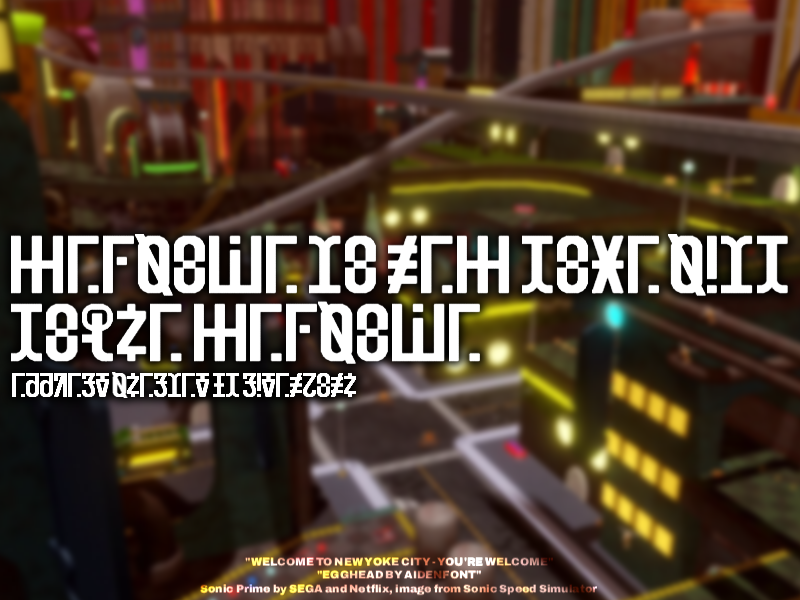
Recreation of the script seen throughout Sonic Prime. Not entirely 1:1 accurate - still a heavy WIP. Still haven't found every letter yet.
As of now, only 2 letters remain not found [X,Z].
J is a rough estimate since I couldn't make out the bottom half from the source I got it from.
Other unidentified glyphs I find will be in lowercase.